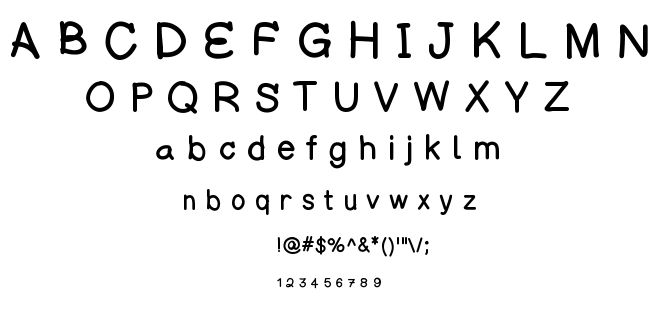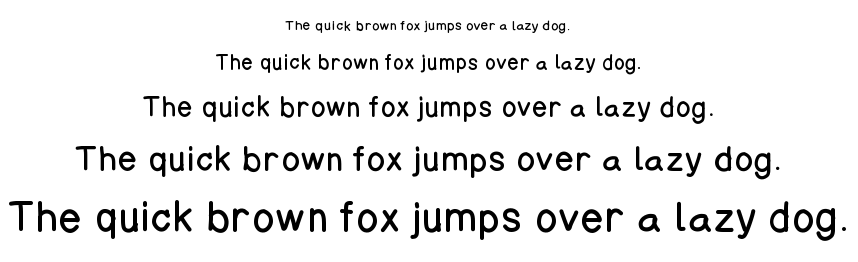
Elementary is first typeface I created solely on my iPad. It’s a little rough but new technology always has room for improvement. The zip file includes, WebType + OpenType + TrueType. If you really like the typeface you can donate via Paypal. Donations support my font making habit, and prove to my wife people actually care about typefaces.